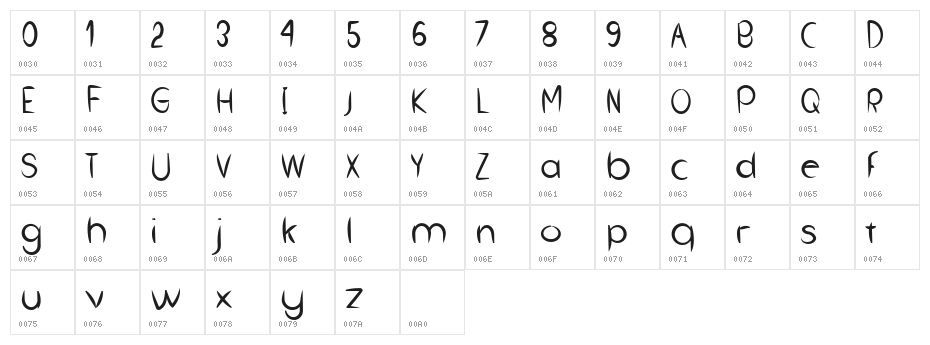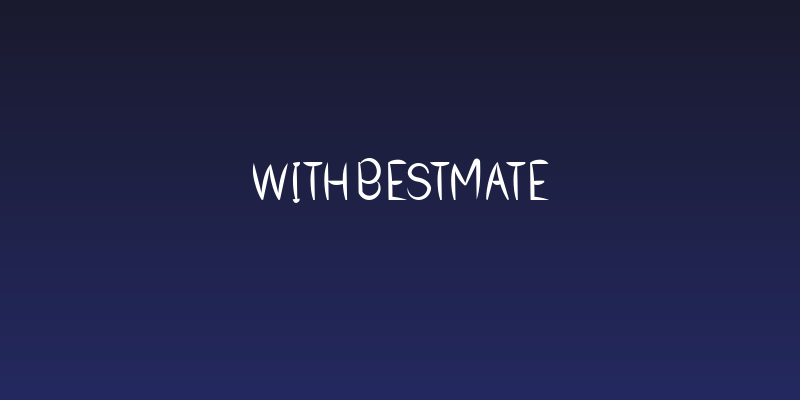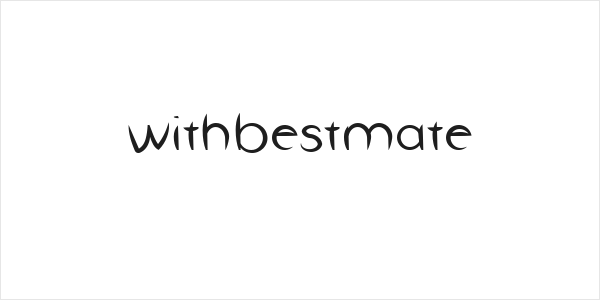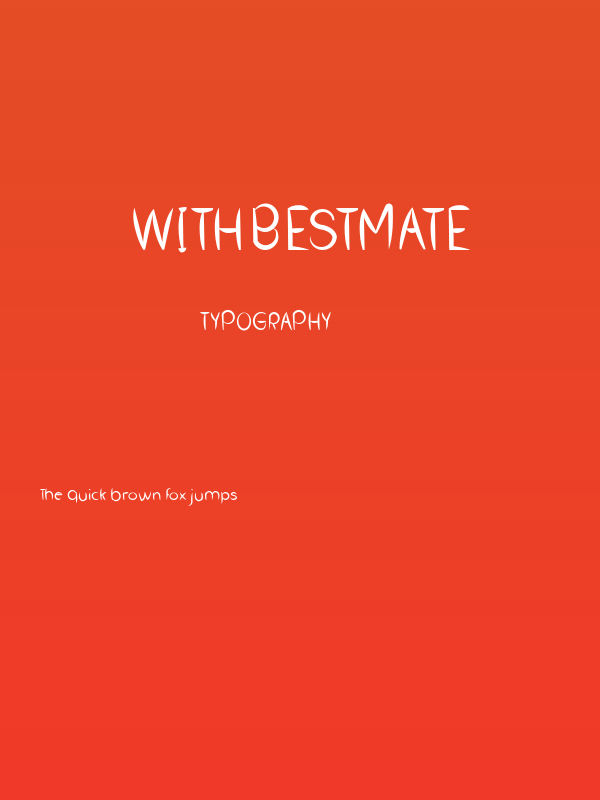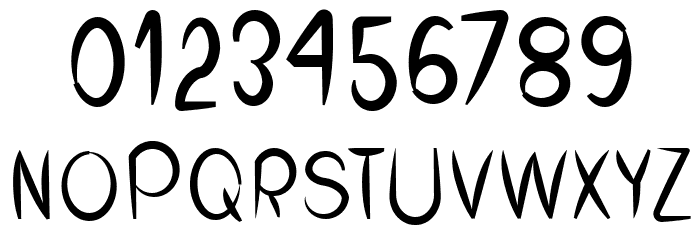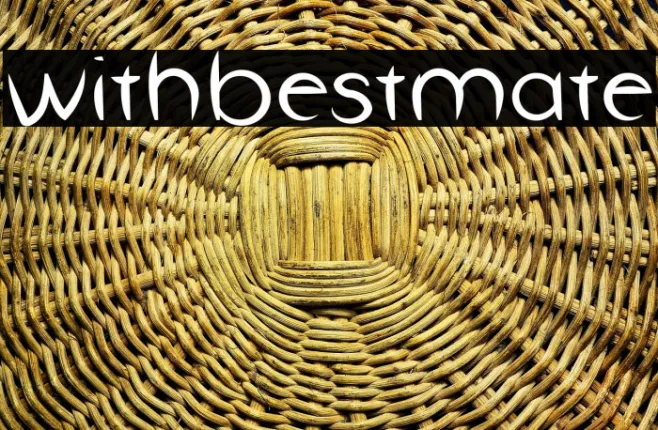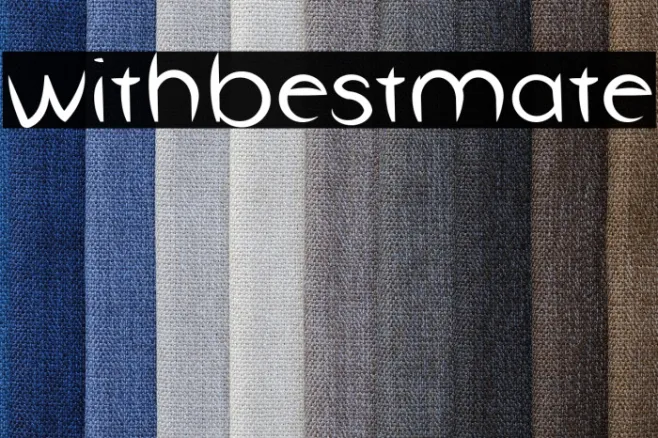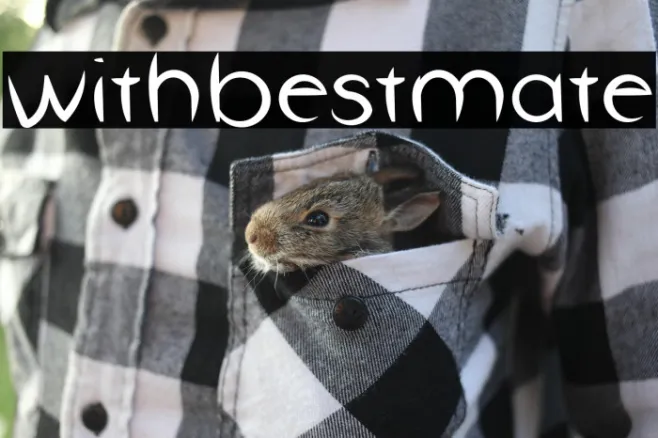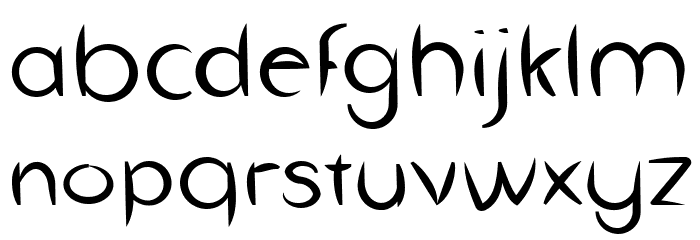
withbestmate Font
withbestmate Description
This font features a playful and whimsical design, characterized by its irregular, flowing lines and slightly exaggerated curves. The letters have a hand-drawn quality, giving them a unique and artistic appearance. The uppercase letters are bold and dynamic, while the lowercase letters maintain a consistent style with a touch of elegance. The numbers are distinct and easily readable, matching the overall aesthetic of the font. The special characters are creatively integrated, adding to the font's versatility. This font is ideal for projects that require a fun and informal touch, such as children's books, greeting cards, or creative branding.
| Proposed Projects | Children's books, greeting cards, creative branding, posters. |